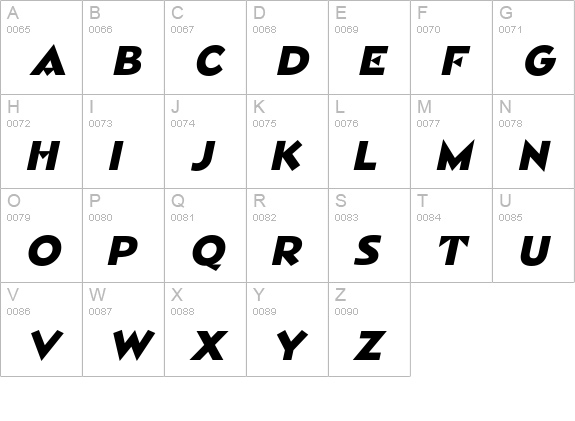
Trimble Italic Font Details
Trimble Italic is a distinctive, italic variant in the Trimble typeface family \xE2\x80\x94 well suited to design and typography projects.
Introducing Trimble Italic font, a sleek and stylish typeface designed to elevate your creative projects to new heights. With its elegant curves and sophisticated letterforms, Trimble Italic effortlessly captures attention and adds a touch of refinement to any design. This versatile font is perfect for a wide range of applications, whether you're designing a logo, creating a captivating website, or crafting eye-catching marketing materials. Its clean lines and balanced proportions make it easily readable, while its distinct italicized style adds a touch of modernity and flair. But what sets Trimble Italic font apart is not just its stunning aesthetics, but also its incredible accessibility. We believe that great design should be available to everyone, and that's why Trimble Italic is offered completely free of charge. Yes, you read that right – this premium font is freely available to download at FontsMarket.com, allowing you to enhance your projects without breaking the bank. Unleash your creativity and let Trimble Italic font be your secret weapon in creating visually stunning designs. Whether you're a seasoned designer or just starting out, this font will help you stand out from the crowd and make a lasting impression. So why wait? Experience the power and elegance of Trimble Italic font today. Download it for free at FontsMarket.com and start transforming your designs into works of art. Elevate your typography game and let Trimble Italic be the perfect companion for all your design endeavors.